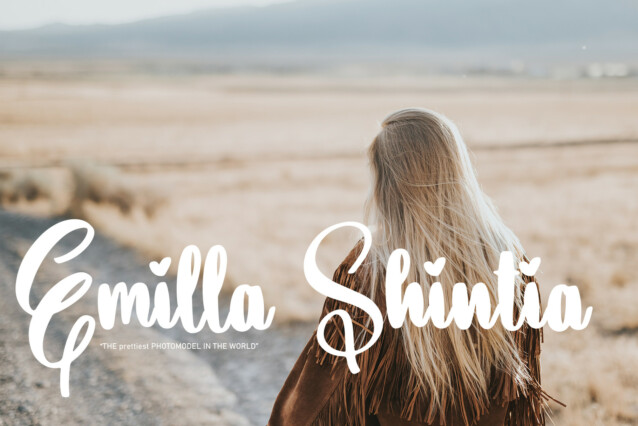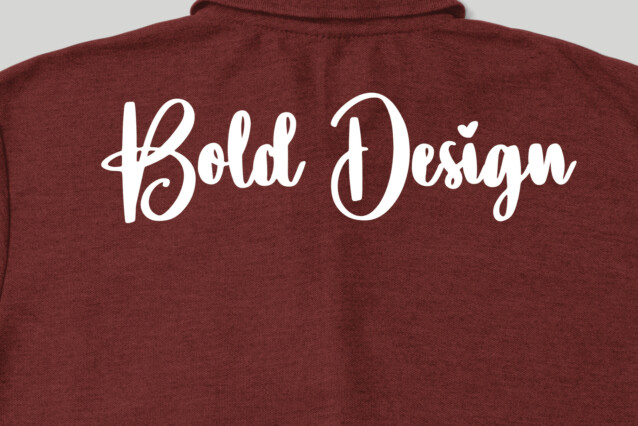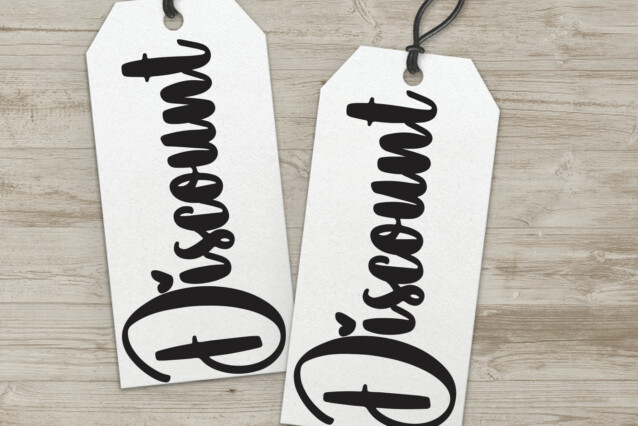
Elegant Script Typeface
Elegant Script Typeface is a stylish and fresh handwritten script font. Whether you’re using it for crafts, digital design, presentations, or making greeting cards, this font has the potential to become your favorite go-to font, no matter the occasion!